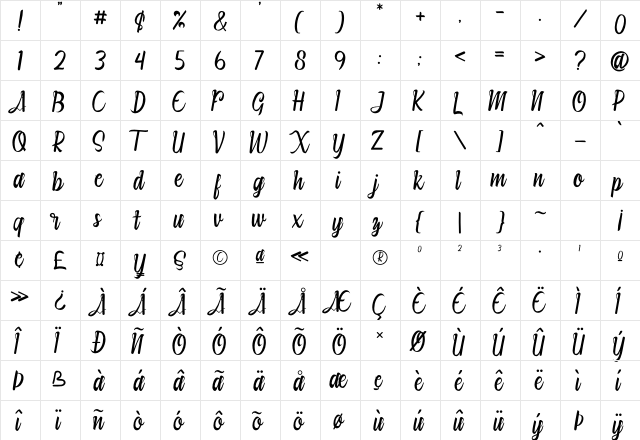
Smooth People CHILD Regular
Design Context for Smooth People CHILD Typeface
Smooth People CHILD trades formality for fun, with bouncy, characterful letterforms that bring warmth and energy to any project.
Font Pairing: Pairs well with a rounded or humanist sans for body copy, maintaining the friendly tone without relying on Smooth People CHILD to carry extended reading.
Pro Tip: Use Smooth People CHILD at larger display sizes where its expressive character can land. Pair with a clean, simple sans for body copy to maintain readability.